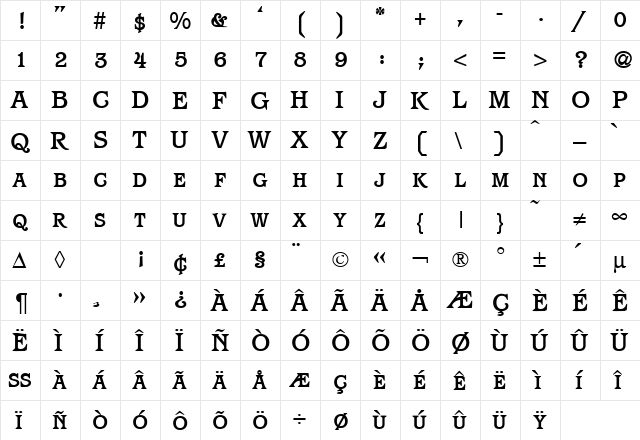
ParagonSmc Bold
Design Context for ParagonSmc Typeface
ParagonSmc takes a measured approach to typography — its balanced proportions and neutral character make it a reliable workhorse for both digital and print work. The heavy weight commands attention and anchors typographic hierarchies.